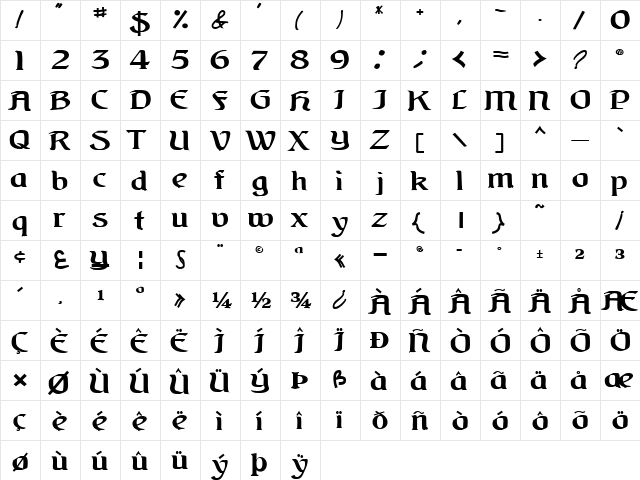
MoonDogText111 Bold
Design Context for MoonDogText111 Typeface
MoonDogText111 is a composed and adaptable typeface that performs quietly and consistently across a wide range of design contexts. Its bold stroke weight gives it real presence on the page.